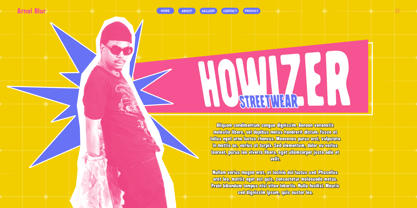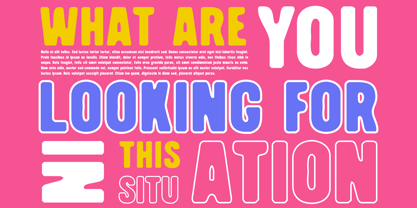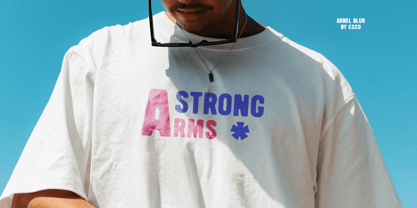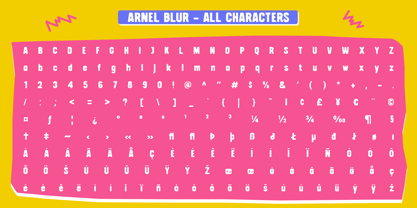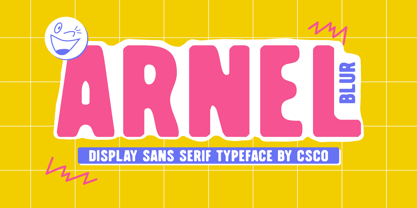
Arnel Blur
The Arnel Blur Font Family was designed by Trio Nazzar Saputra, Wahyu Hadi Yuana and published by Craft Supply Co. Arnel Blur contains 2 styles and family package options. More about this family
Arnel Blur – Bold Sans-Serif Font: Strength Meets Modern Edge
Modern Bold Sans-Serif with Blur Effect
Arnel Blur is a striking sans-serif font that combines bold design with a unique blur effect, creating a powerful and contemporary visual presence. This modern typeface exudes strength and masculinity, making it perfect for design projects that require a commanding and assertive character.
Sturdy and Assertive Design
Arnel Blur’s robust letterforms are designed to make a strong impression. The bold and sturdy design communicates confidence and authority, making it ideal for projects where a powerful visual impact is essential. Its masculine character ensures that your designs stand out with a bold and unwavering presence.
Blur Effect for a Modern Twist
The addition of a blur effect adds a modern twist to Arnel Blur, enhancing its visual appeal and capturing attention. This innovative touch introduces a sense of depth and movement, making the font particularly effective in dynamic designs that need to engage and intrigue the viewer.
Ideal for Standout Branding and Advertising
Arnel Blur is perfect for branding, posters, and advertisements that demand a distinctive and eye-catching look. Its combination of bold design and modern blur effect ensures that your projects leave a lasting impression, making it the ideal choice for any design that requires both strength and contemporary flair.